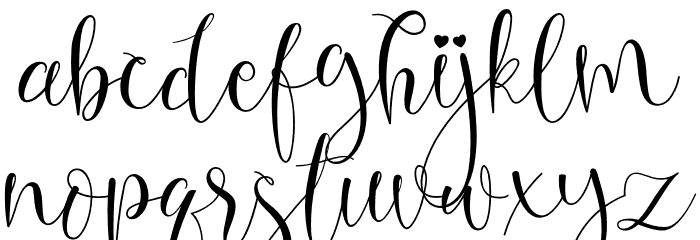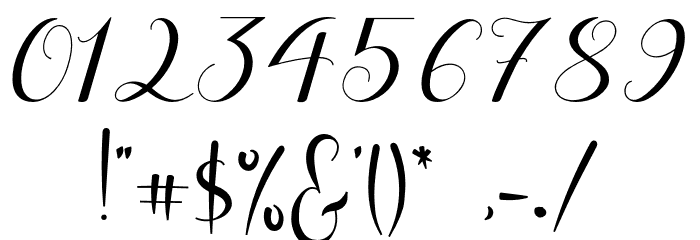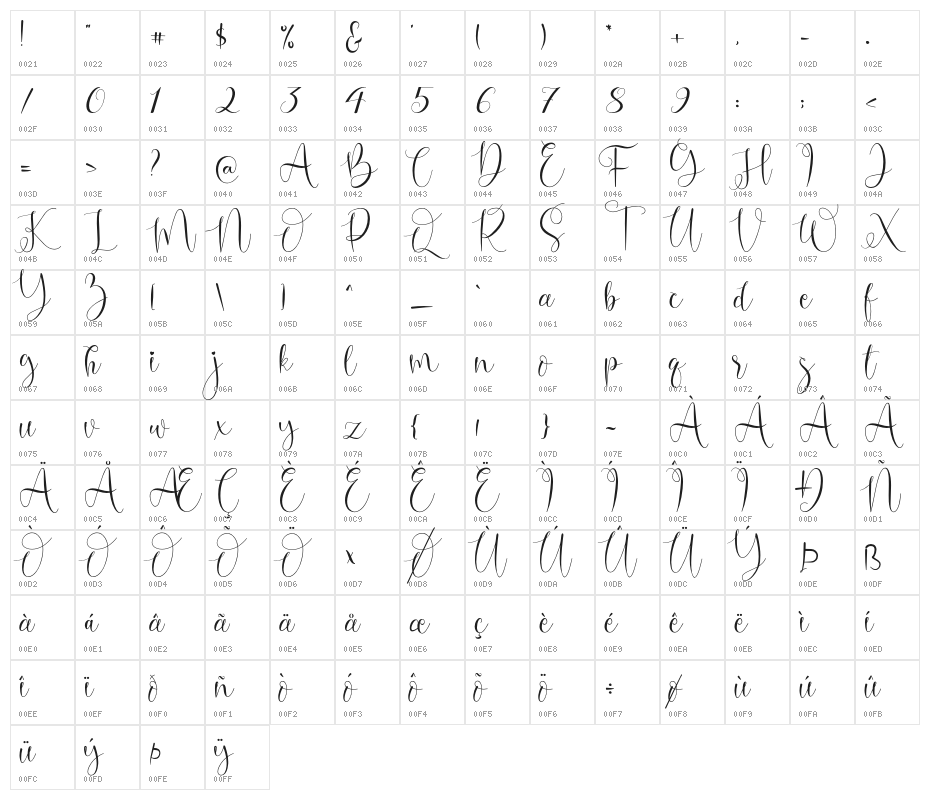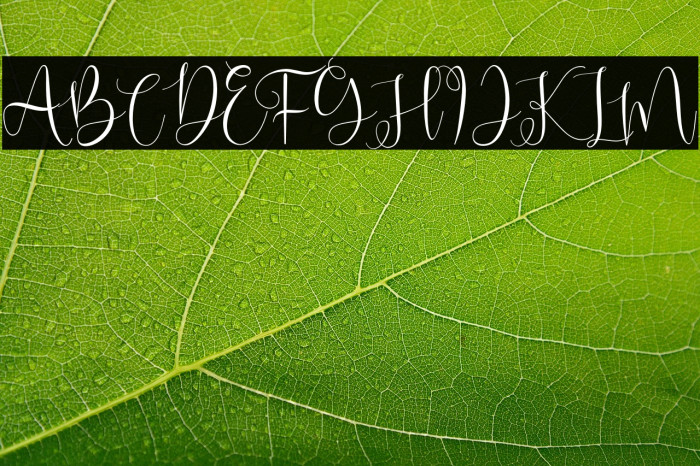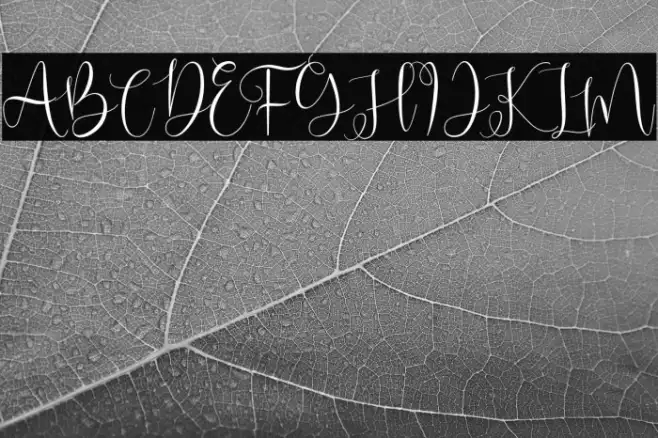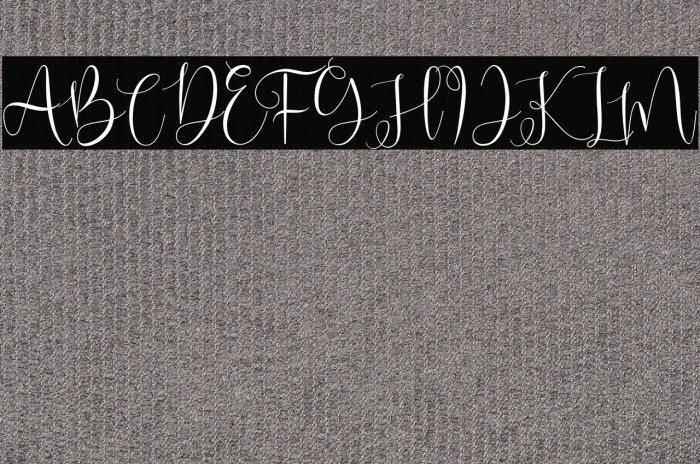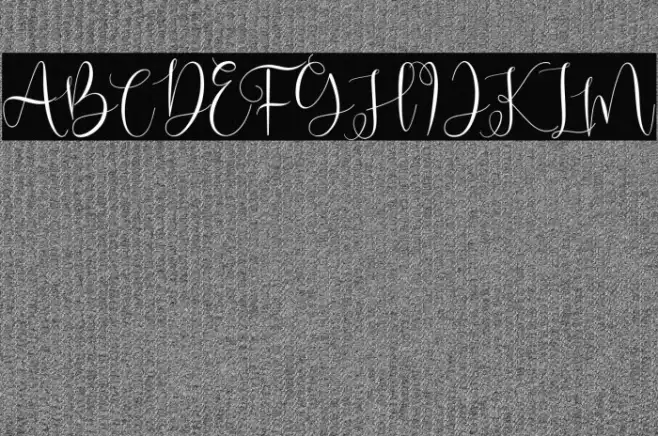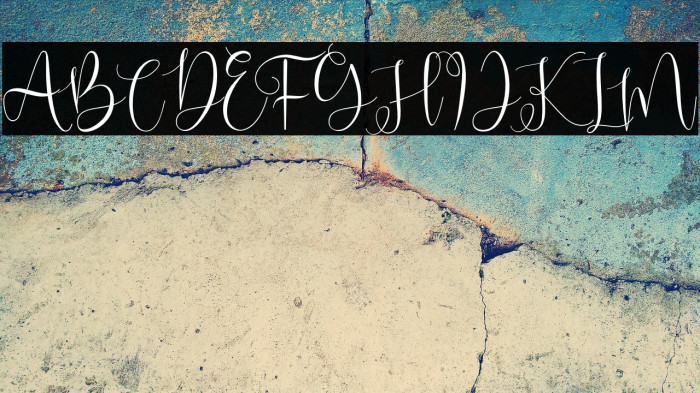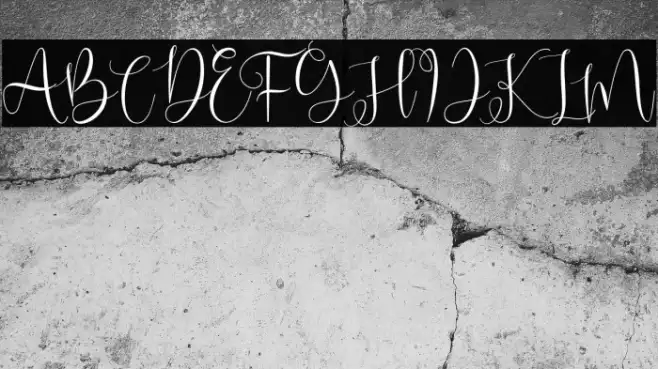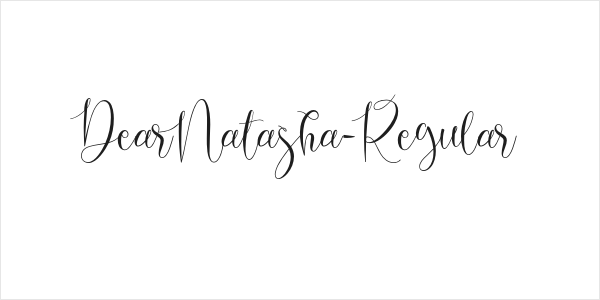
DearNatasha-Regular Font
This font exhibits a graceful and flowing script style, characterized by its elegant, cursive letterforms. The uppercase letters are ornate, with sweeping loops and flourishes that give a sense of sophistication and fluidity. The lowercase letters maintain a consistent style, with smooth, connected strokes that enhance readability while retaining a decorative flair. The numerals are designed with a similar elegance, featuring gentle curves and a harmonious balance. Special characters are thoughtfully integrated, maintaining the overall aesthetic. This font is ideal for projects that require a touch of elegance and personalization.
A graceful and flowing script font with elegant cursive letterforms.
- Font: DearNatasha-Regular
- Proposed Projects: Wedding invitations, greeting cards, branding materials, and elegant packaging designs.
- Category: Script
- Overall Style: Elegant, Decorative
- Use Case: Headlines, Invitations, Logos